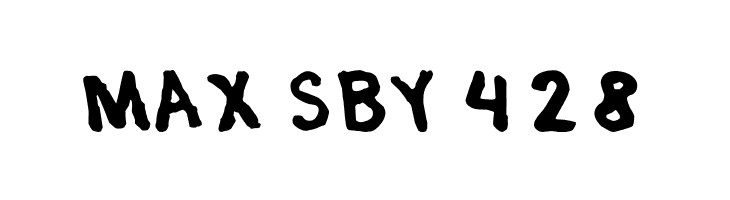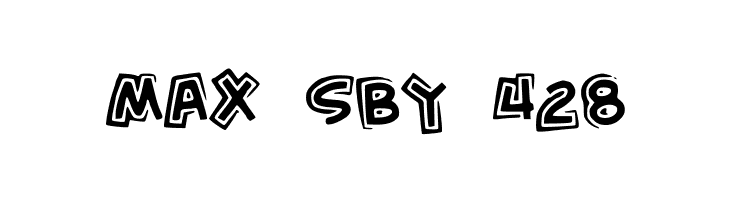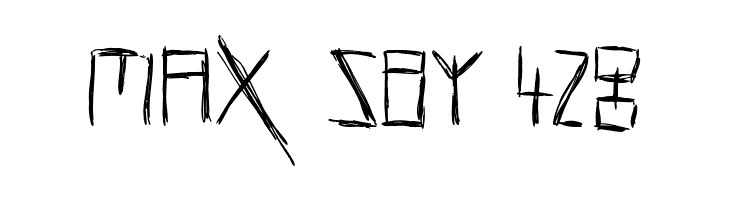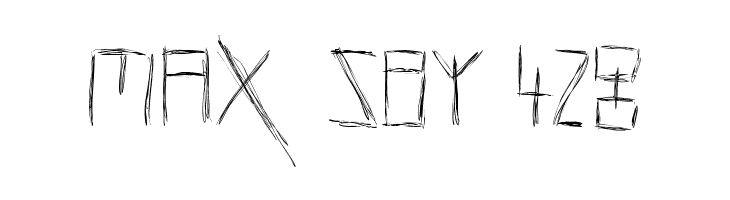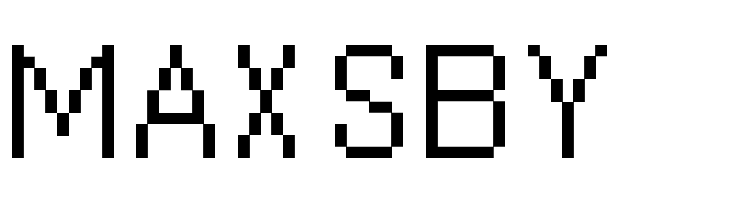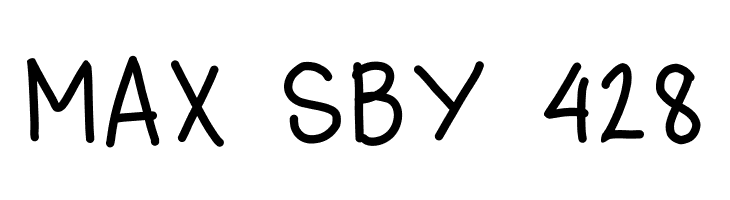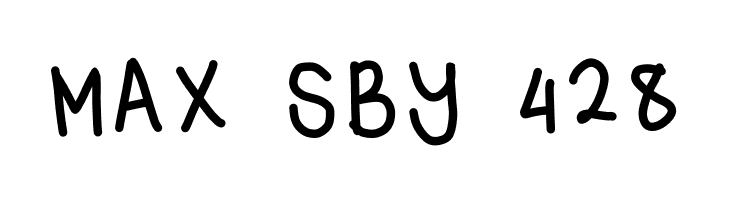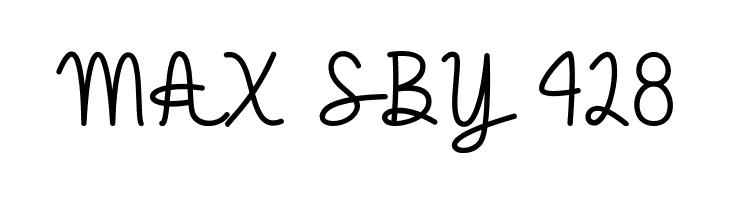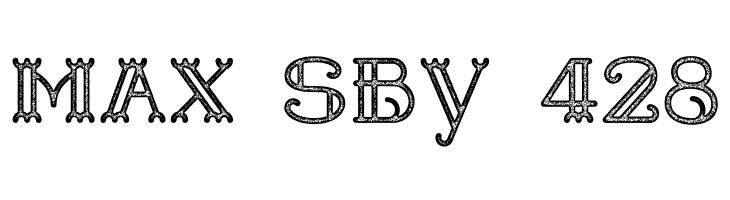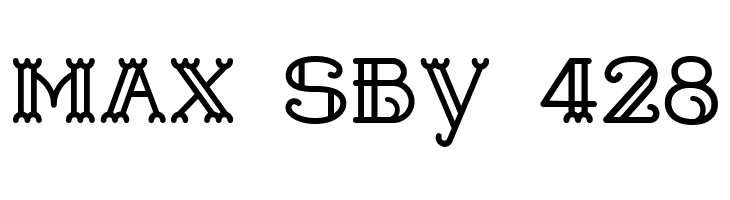
A bold, hand-drawn font with a playful, irregular style.
A bold, playful font with a hand-drawn, outlined style.
A bold, hand-drawn font with a chaotic, sketch-like style.
A hand-drawn, sketch-like font with jagged lines and an edgy appearance.
A playful, handwritten font with rounded edges and consistent stroke width.
A bold, decorative font with jagged outlines and a dynamic, energetic style.
A playful, rounded font with smooth curves and a whimsical style.
A playful, handwritten font with smooth, rounded strokes and a casual vibe.
A playful, handwritten-style font with bold, flowing strokes and a casual appearance.
A helicopter-themed dingbat font with detailed aircraft illustrations.
A decorative font featuring detailed helicopter silhouettes for each character.
A bold, geometric font with a three-dimensional, retro-futuristic style.
A bold, angular italic font with a futuristic and dynamic style.
A bold, geometric font with a three-dimensional, futuristic design.
A bold, geometric font with a modern, striped design.
A bold, 3D geometric font with outlined characters and a retro feel.
A bold, italicized font with geometric outlines and strong visual impact.
A bold, futuristic font with a three-dimensional, italic design.
A bold, italicized font with a gradient effect, perfect for modern and dynamic designs.
A bold, angular font with a dynamic, slanted style and geometric shapes.
A bold, italic, futuristic font with sharp angles and a dynamic style.
A bold, angular font with a strong geometric and modern aesthetic.
A bold, 3D italic font with a modern, geometric style.
A bold, geometric font with a unique half-tone effect and strong visual impact.
A bold, condensed, and italicized font with sharp, dynamic angles.